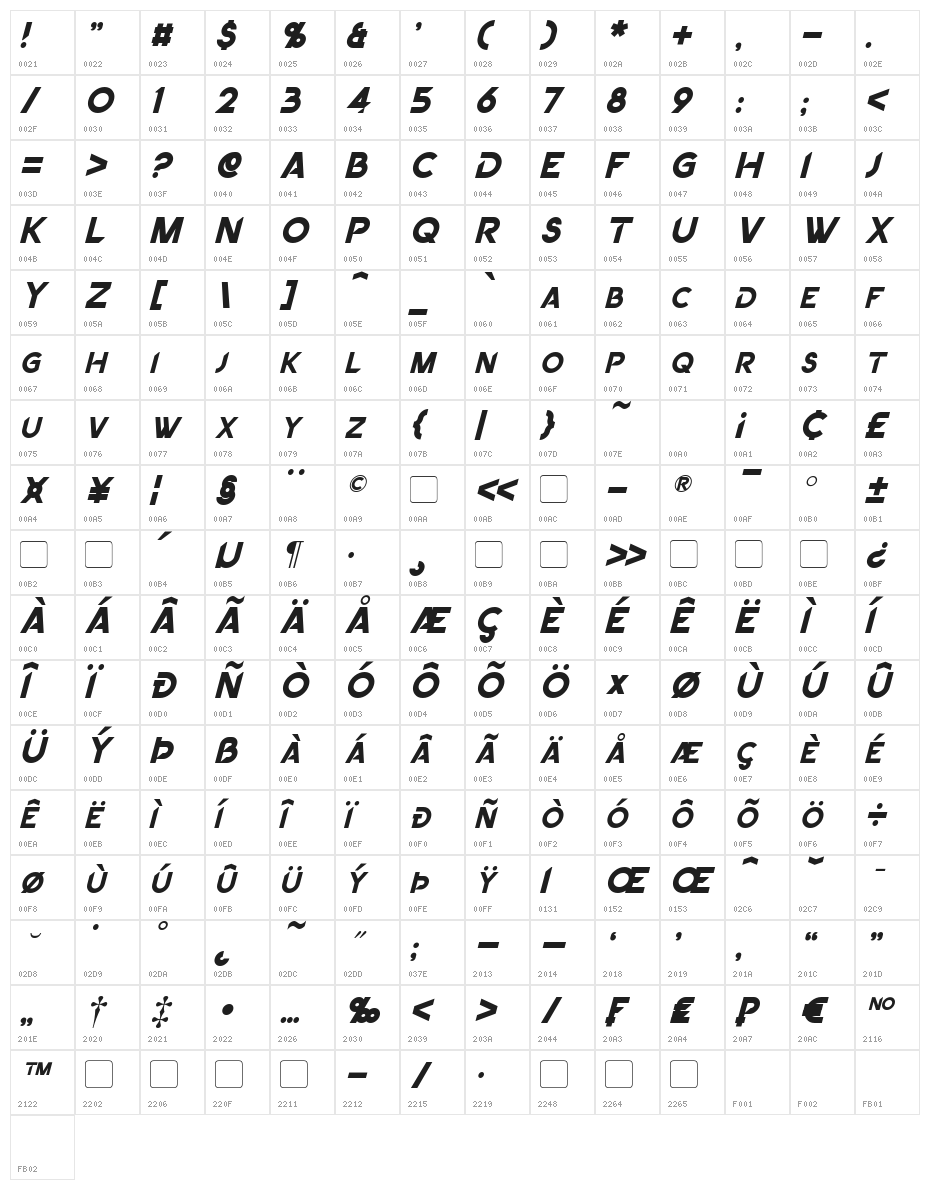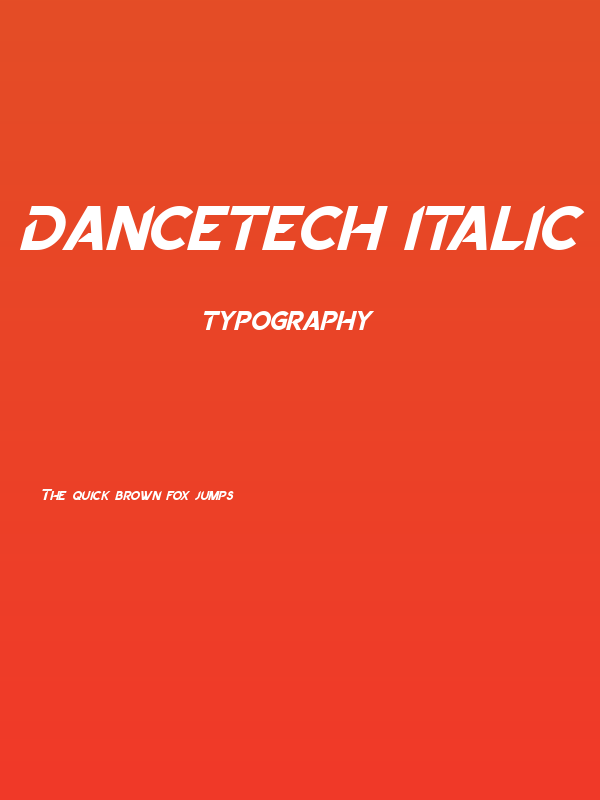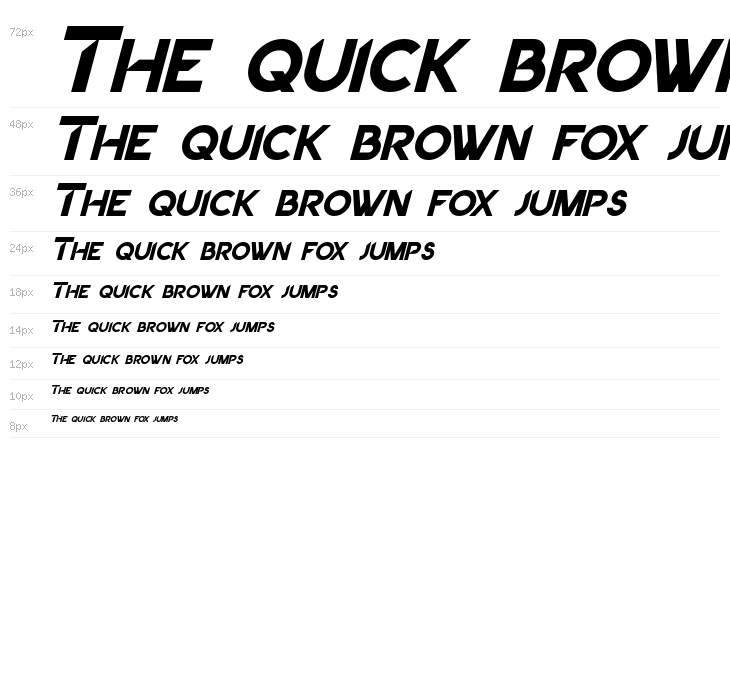
Dancetech Italic Font
Dancetech Italic Description
This font features a bold and dynamic italic style, characterized by its sharp angles and strong presence. The letters are slightly slanted, giving a sense of movement and energy, which is enhanced by the thick strokes and geometric shapes. The uppercase and lowercase letters maintain a consistent style, with a modern and futuristic aesthetic. The numbers are equally bold, ensuring readability and impact. Special characters are designed to match the overall style, making them suitable for various design contexts. The font's strong visual impact makes it ideal for attention-grabbing headlines and logos.
| Proposed Projects | Ideal for sports branding, tech-related designs, dynamic posters, and modern advertising campaigns. |